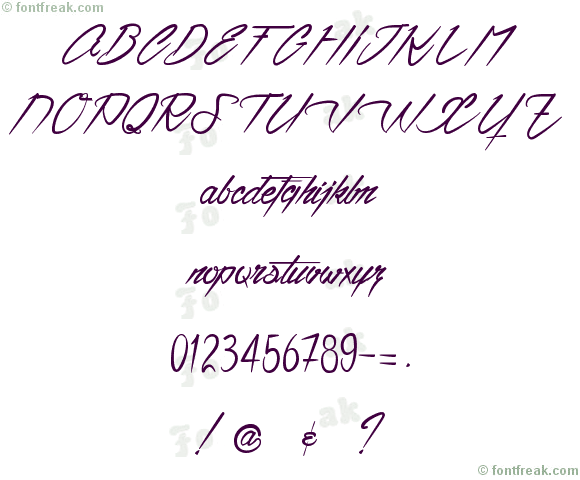
Ventilla Script
Ventilla Script, designed by Maelle.K, is a captivating script font that blends elegance with a modern touch, making it a versatile choice for various design projects. This font features fluid, cursive strokes that convey a sense of sophistication and warmth. The graceful curves and stylish flourishes create a harmonious balance between readability and decorative appeal. With its medium stroke weight and gentle contrast, Ventilla Script is both inviting and legible, making it suitable for a wide range of applications.
This font shines in specific use cases, particularly for wedding invitations where its romantic flair can enhance the overall aesthetic. It also works beautifully for branding materials, such as logos and packaging for artisanal products, adding a personal touch that appeals to consumers. Additionally, Ventilla Script is ideal for restaurant menus, where its elegant lines can elevate the dining experience. Content creators will find it valuable for social media graphics, lending a chic vibe to promotional posts and stories.
The target audience for Ventilla Script includes graphic designers, small business owners, and content creators looking to make a lasting impression with their typography. This font speaks to those who appreciate the art of design and seek to convey emotion through their work.
What sets Ventilla Script apart is its unique balance of sophistication and versatility. It offers the perfect blend of style and functionality, allowing designers to express creativity without sacrificing clarity. With a Ventilla Script font free download available, there’s no reason not to incorporate this stunning typeface into your next project, ensuring your designs stand out with elegance and charm.